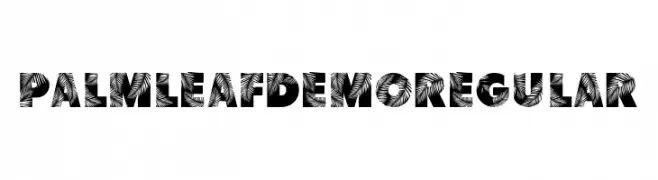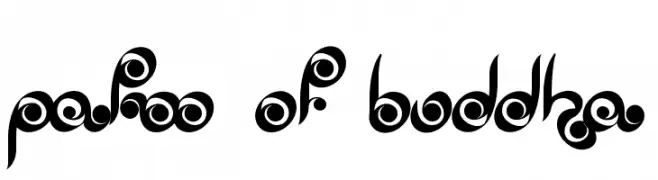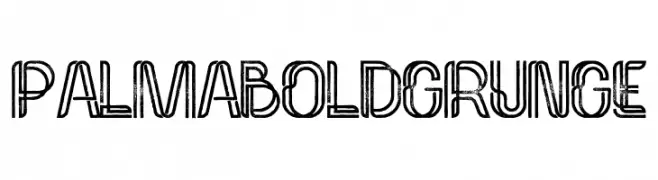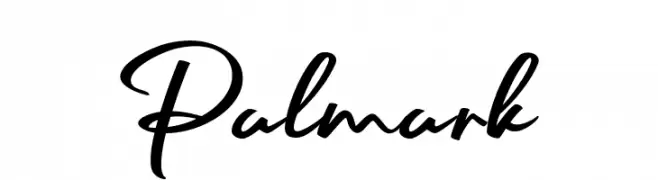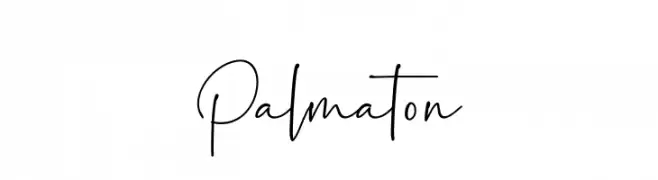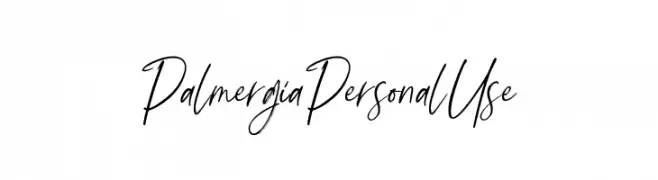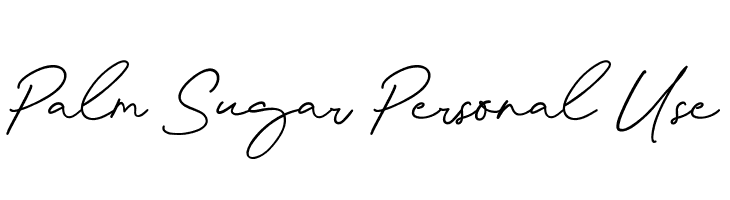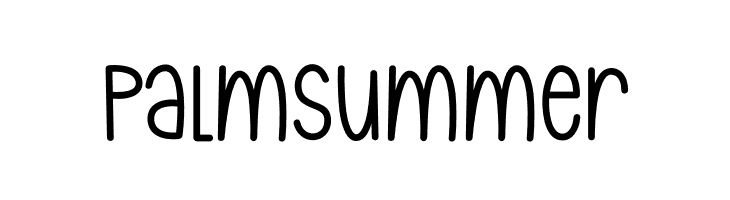
A bold, decorative font with intricate palm leaf patterns in each character.
A cursive, handwritten-style font with elegant, flowing characters.
A playful, handwritten font with rounded edges and consistent stroke width.
A bold, grunge-style font with a textured, distressed appearance.
A bold, grunge-style font with a distressed, rugged appearance.
A flowing, cursive script font with elegant, connected letters.
A modern, minimalist font with clean, geometric lines and consistent stroke width.
A casual and elegant handwritten font with fluid, natural strokes.